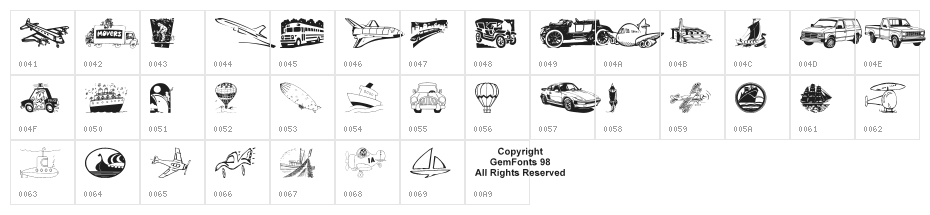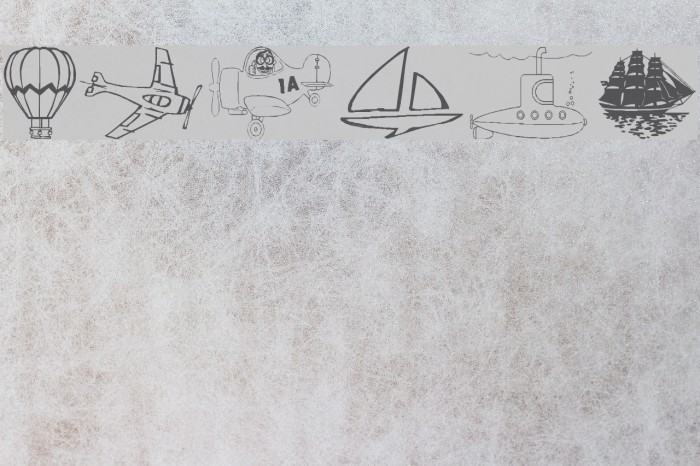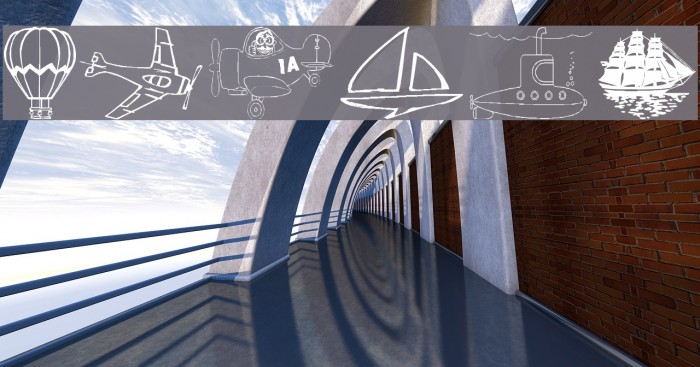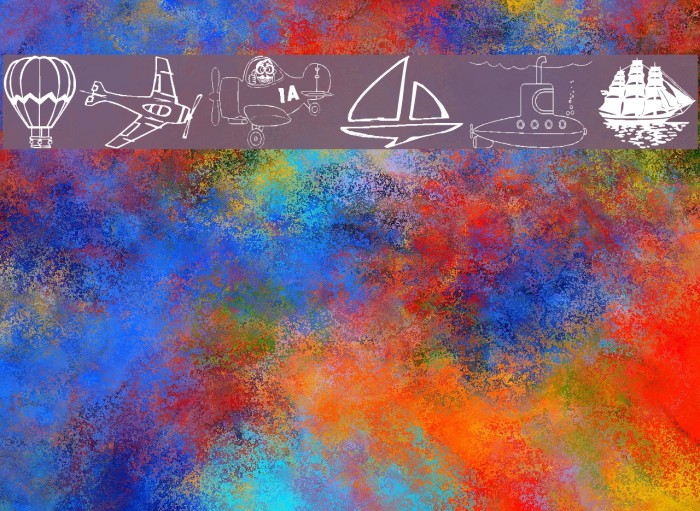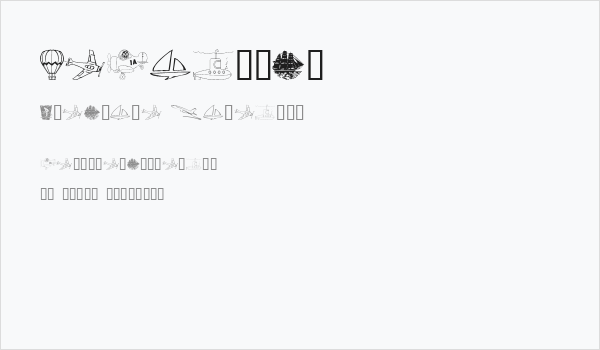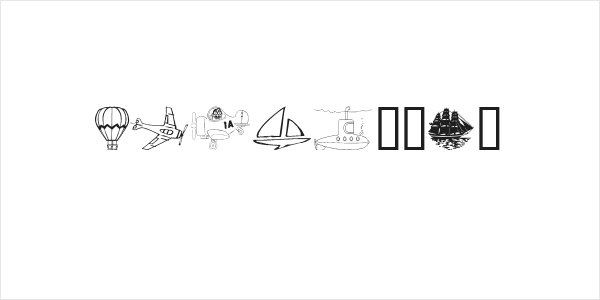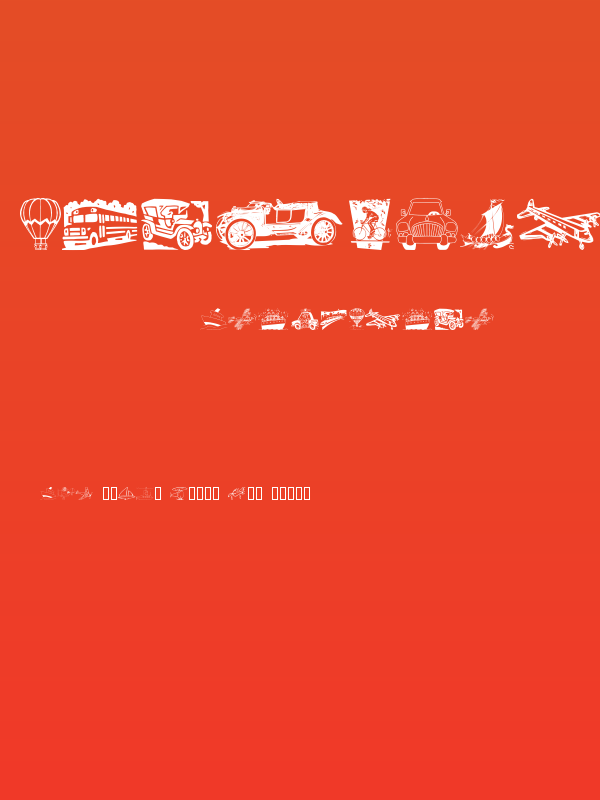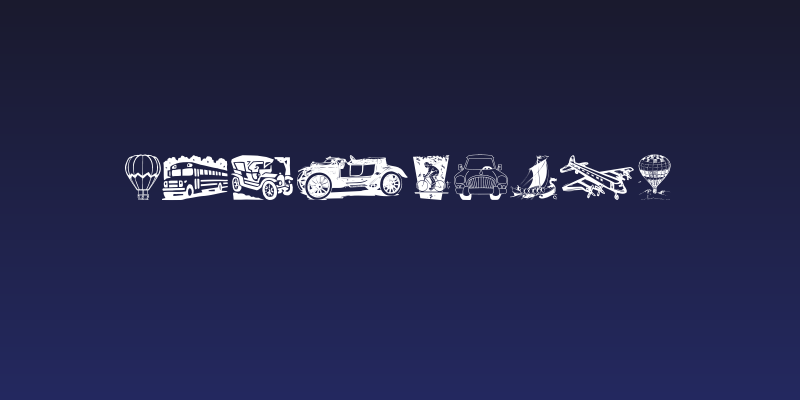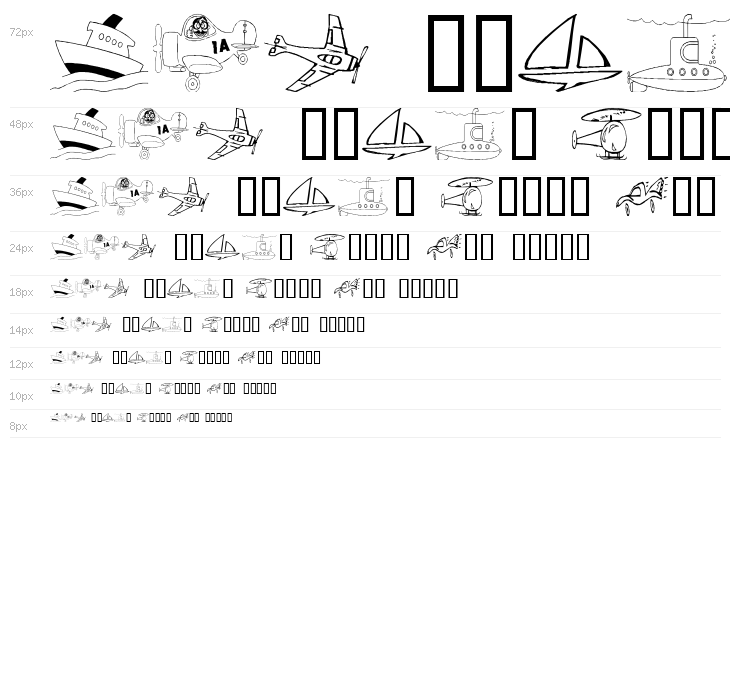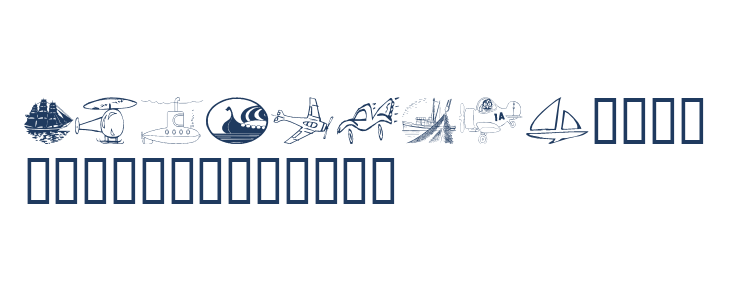
Vehicular Font
Vehicular Description
This is a decorative font featuring a variety of vehicular illustrations. Each character is represented by a different vehicle, ranging from classic cars and airplanes to ships and hot air balloons. The style is playful and detailed, making it suitable for creative projects that require a unique and thematic approach. The illustrations are black and white, providing a classic and timeless feel. This font is ideal for projects that aim to capture the essence of travel and transportation through visual storytelling.
| Use Case | Logos, Posters, Creative Projects |
| Proposed Projects | Ideal for travel-themed posters, educational materials about transportation, and creative design projects that require a unique vehicular theme. |